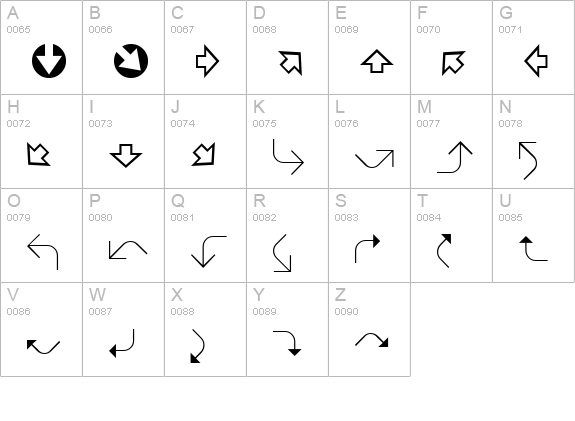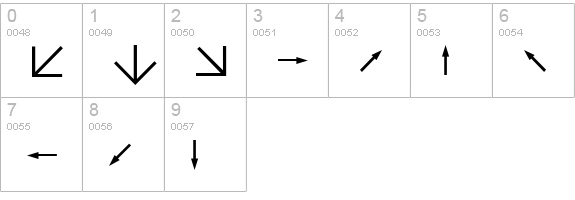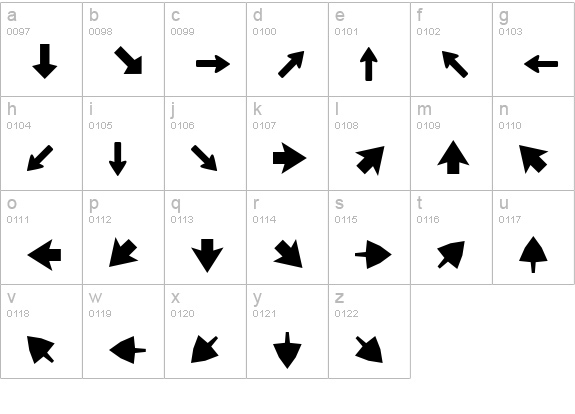
XIngyArrowsTwo Font Details
Below you can preview XIngyArrowsTwo in uppercase [A-Z], lowercase [a-z] and numbers [0-9]. You can also read the author's notes and license information before downloading.
The XIngyArrowsTwo font is a captivating and unique typeface that will elevate your design projects to new heights. With its intricate arrow designs and sleek, modern look, this font is perfect for adding a touch of flair to any creative endeavor. Whether you're designing a logo, poster, or website, XIngyArrowsTwo is sure to make a bold statement. Best of all, this font is completely free to download at FontsMarket.com. Yes, you read that right - absolutely free! Don't miss out on the opportunity to add this eye-catching font to your collection and take your designs to the next level. Download XIngyArrowsTwo today and let your creativity soar.